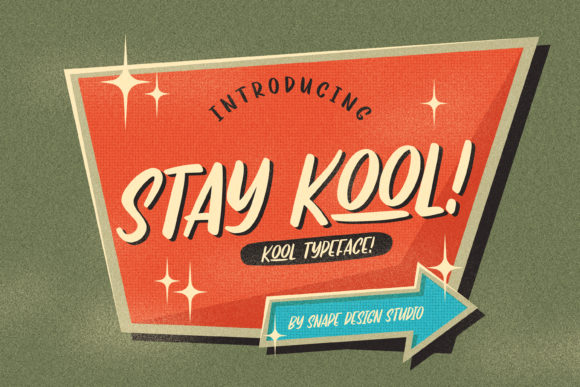
Unleash your creativity and express your individuality with Stay Kool Font, the ultimate display font that oozes fun, casual, and relaxed vibes. Meticulously crafted with the stroke of a brush pen, Stay Kool Font is your perfect companion for creating informal and trendy designs that are sure to captivate and inspire.
Journey into a world of artistic expression with Stay Kool Font, where your imagination knows no bounds. Its free-flowing script is perfect for adding a touch of personality and flair to your projects. Whether you're designing logos, posters, flyers, or social media graphics, Stay Kool Font will effortlessly elevate your designs, making them stand out from the crowd.
Step into the world of tattoo artistry with Stay Kool Font, the perfect choice for creating captivating tattoo designs that speak to the soul. Its unique and expressive characters will allow you to create intricate and meaningful tattoos that tell a story. Let your imagination soar as you explore the endless possibilities that Stay Kool Font offers.
Immerse yourself in the world of digital art with Stay Kool Font, the ideal choice for creating eye-catching digital illustrations and graphics. Its playful and dynamic style will bring life to your digital creations, adding a touch of whimsy and charm. Whether you're creating illustrations for children's books, designing quirky animations, or adding a personal touch to your digital art, Stay Kool Font will elevate your work to new heights.
Discover the endless possibilities of Stay Kool Font, the perfect choice for adding a touch of fun and creativity to your designs. Its versatility and charm make it suitable for a wide range of projects, from personal invitations and greeting cards to playful branding and marketing materials. Let Stay Kool Font infuse your designs with a sense of joy and personality, leaving a lasting impression on your audience.